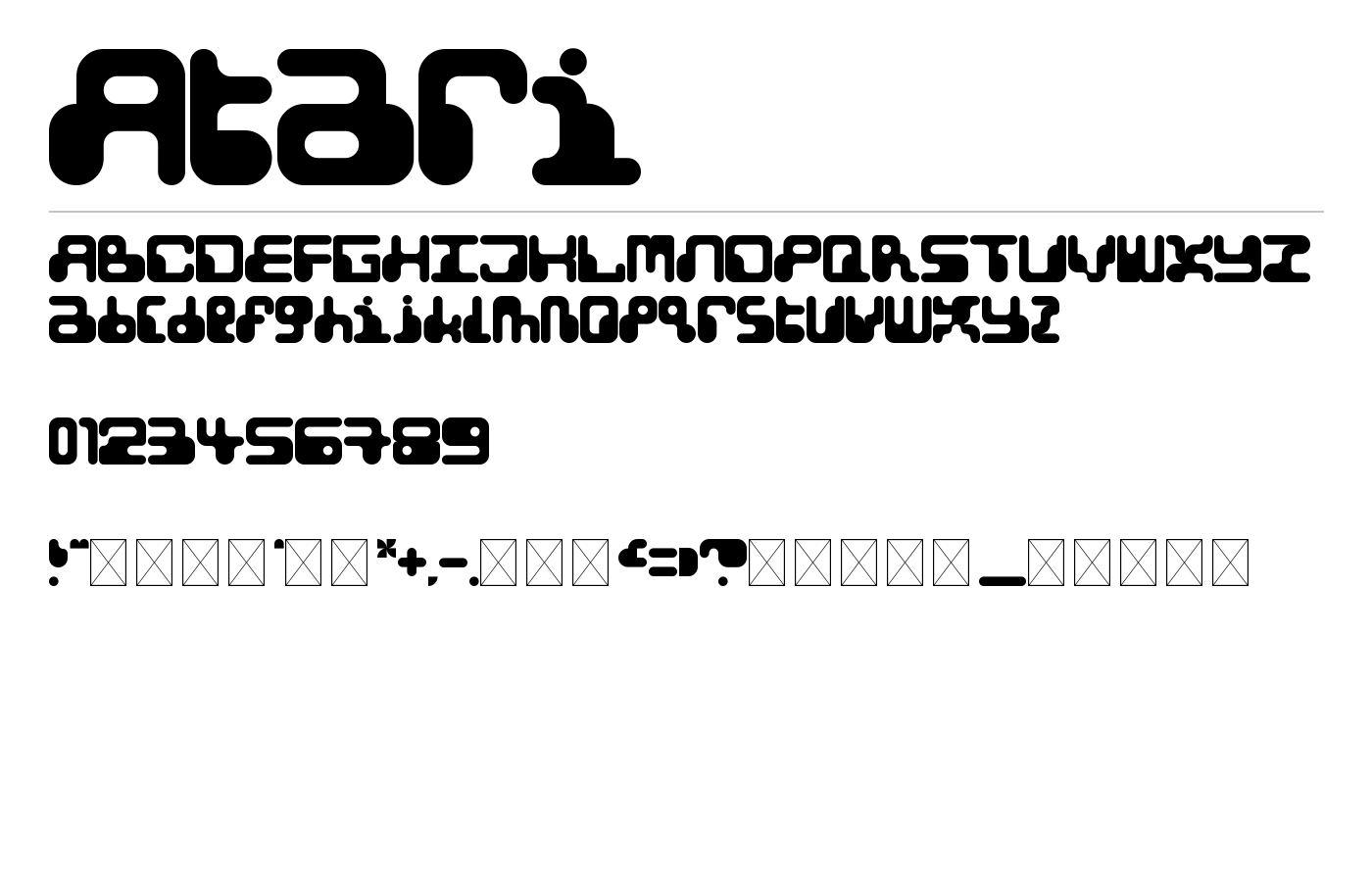
Atari Font is a bold, futuristic sans serif typeface featuring thick, rounded strokes with a distinctly retro digital feel. Its wide, geometric letterforms and low contrast make it ideal for creating eye-catching logos, posters, and branding that evoke technology and vintage arcade vibes. This font works best in display settings where its playful, sci-fi personality can shine clearly.
Atari Font
About Atari Font
| Font family | Atari Font |
| Designer | azertyuiopqsdfgh |